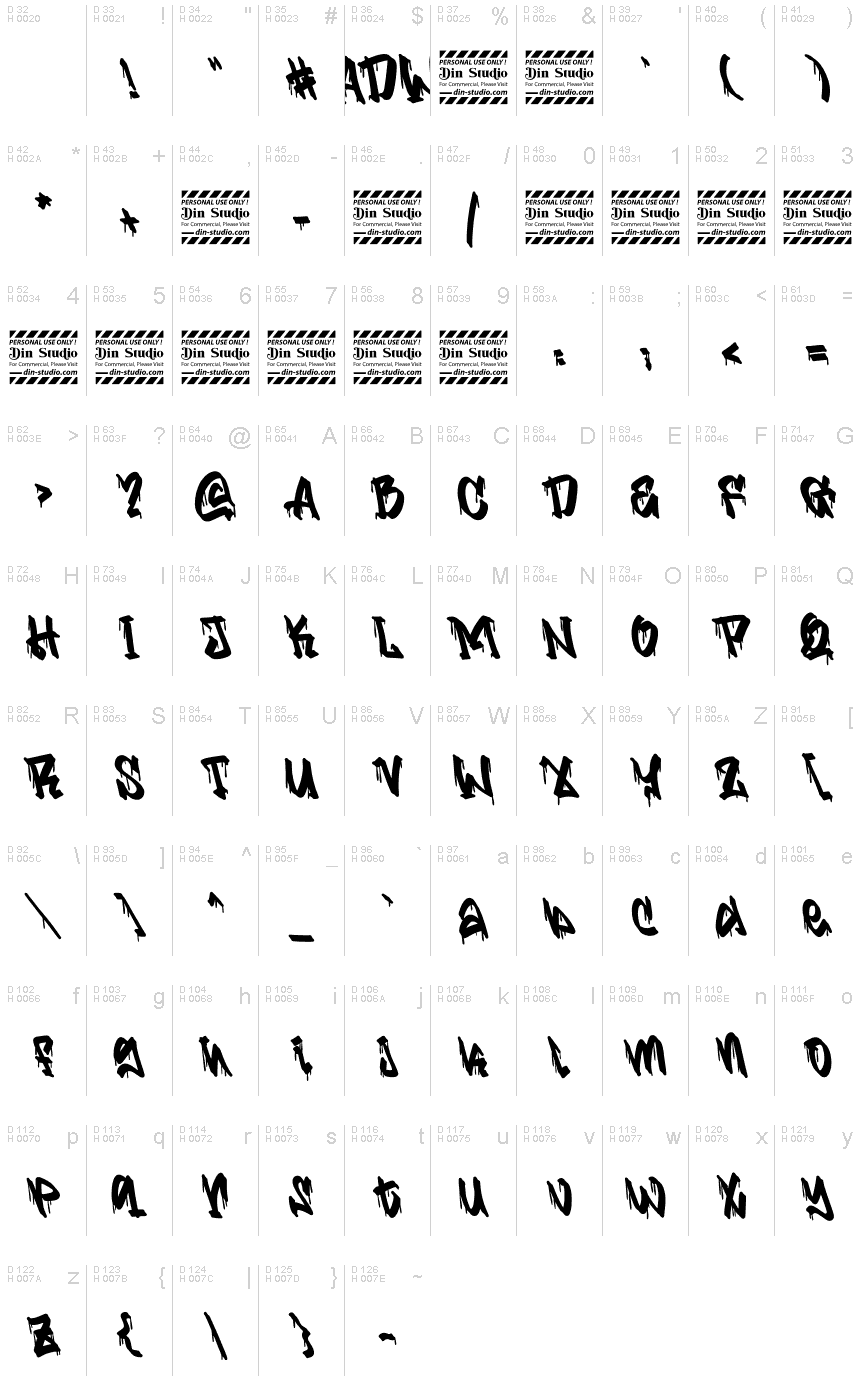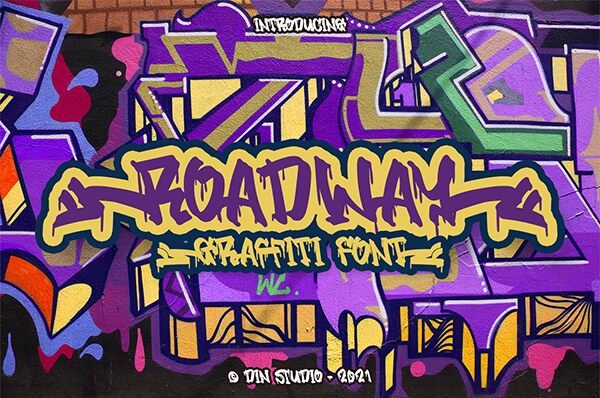
Roadway Personal Use
Roadway, a striking creation by Din Studio, embodies the rebellious spirit of street art with its semi-bold graffiti style. Infused with an urban edge, this font captures the raw energy of cityscapes and the freedom of expressive street murals.
Perfect for projects that require a touch of audacity, Roadway is versatile enough to enhance everything from edgy branding campaigns to contemporary fashion labels or music posters. Its unique character ensures that your message not only stands out but resonates with an audience craving authenticity and creativity.
Embrace Roadway in your next project and let its distinctive style speak volumes about your visionary approach to design.